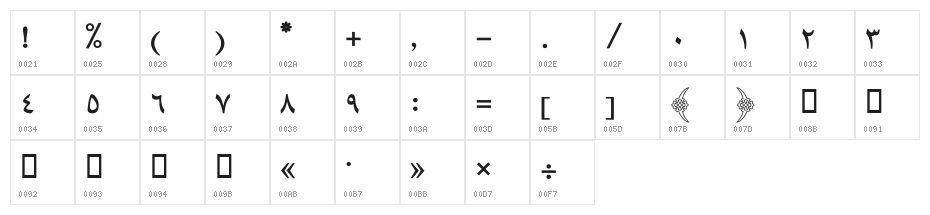
Foraat Font
Foraat Description
This font features a unique and artistic style, characterized by its fluid and dynamic strokes. The numerals are particularly distinctive, with a playful and slightly whimsical appearance. The special characters maintain the same artistic flair, adding a creative touch to any design. This font is ideal for projects that require a personal and artistic feel, making it suitable for creative branding, artistic posters, and unique invitations.
گالری فانت فارسی پژوهش آريانا - only compatible with Farsi and Arabic
| Overall Style | Artistic |
| Use Case | Logos, Headlines, Artistic projects |
| Proposed Projects | Creative branding, artistic posters, unique invitations, and personal projects. |